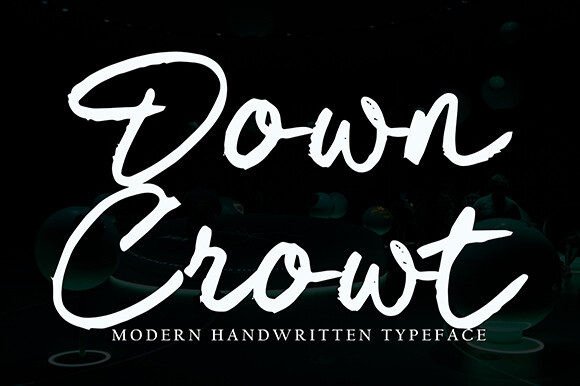
Step into the realm of elegance and sophistication with Down Crowt Font, a script typeface that will mesmerize you with its sweeping strokes and timeless beauty. This remarkable creation from the collaborative minds of Pineungtype and Missinklab is more than just a font; it's an artistic masterpiece that elevates your designs to new heights of refinement.
As you delve into the depths of Down Crowt's characters, you'll discover a world of enchanting possibilities. Each letter dances across your screen with grace and poise, exuding an aura of luxury and charm. Its flowing lines and delicate curves evoke a sense of nostalgia, reminiscent of handwritten letters penned with care and affection.
Imagine the impact your wedding invitations will make when adorned with Down Crowt's graceful script. Your words of love and commitment will dance across the page, capturing the essence of your special day with timeless elegance. Thank-you cards, quotes, and greeting cards take on a new level of sincerity and thoughtfulness, carrying your heartfelt messages with an air of sophistication.
Businesses too can harness the power of Down Crowt to create logos and business cards that command attention and leave a lasting impression. Its intricate details and impeccable style exude professionalism and trustworthiness, setting you apart from the competition. Whether you're a creative professional or a business owner, Down Crowt is the perfect font to elevate your designs and leave your audience spellbound.
Step into a world of elegance and grace with Down Crowt Font. Let your creativity soar as you craft designs that radiate beauty, charm, and sophistication. Experience the transformative power of this exquisite script and unlock the full potential of your artistic vision.